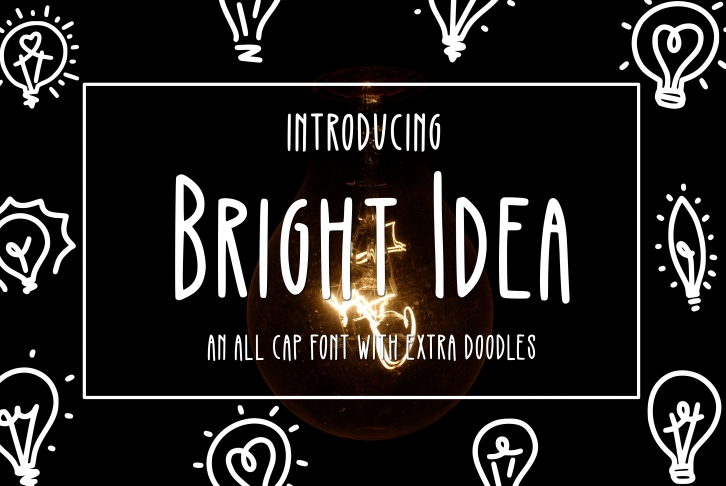
Bright Idea is a great font that was designed by Kitaleigh. Imagine the amount of combinations you can create using this font! The archive is 3.81 MB and it was released on March 26, 2018. Bright Idea looks beautiful on wedding invitations, greeting cards, logos, posters, labels, t-shirt designs, logos, business cards and is perfect for use in ink or watercolor works, fashion, magazines, packaging and food menus, children's books and more!